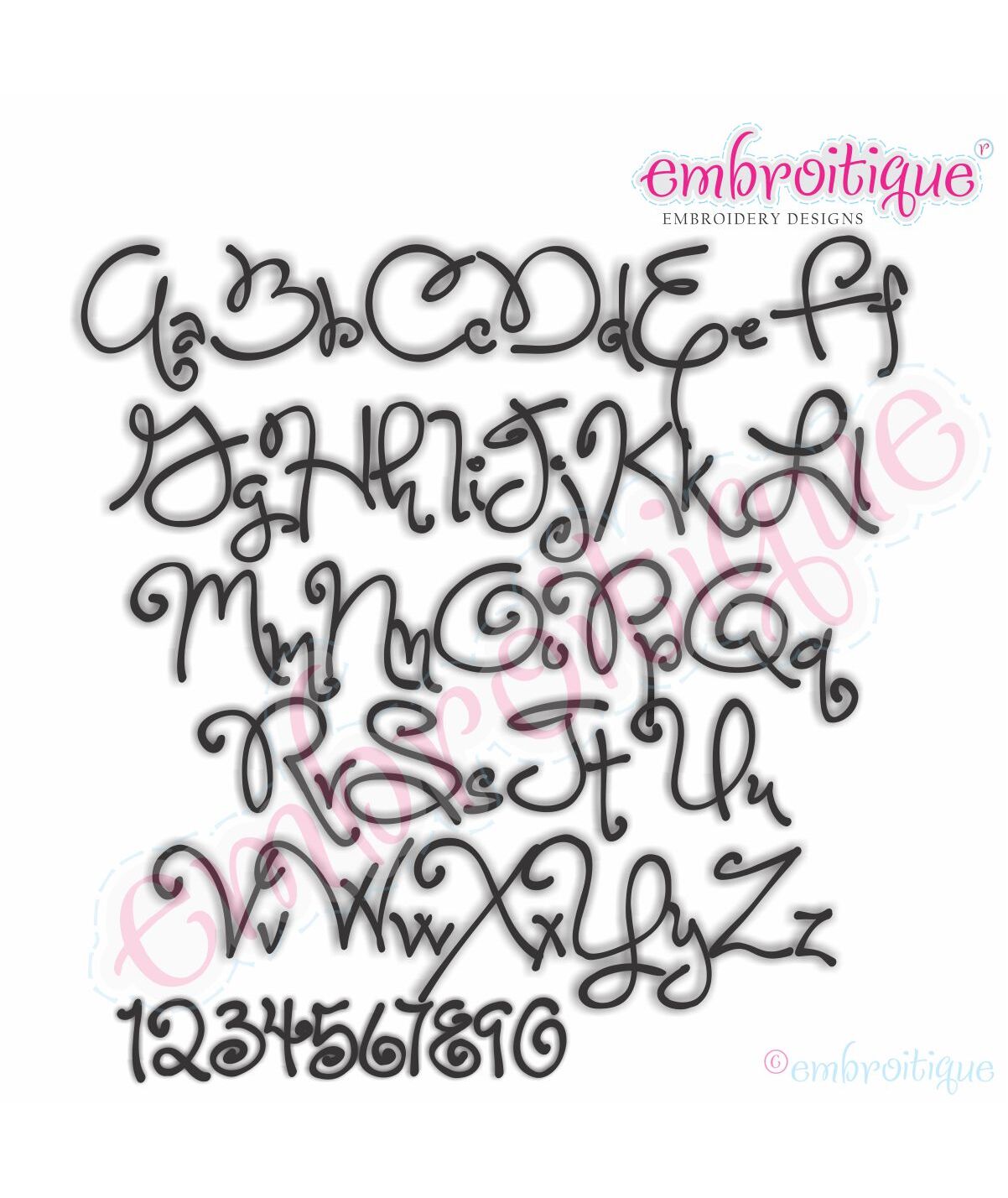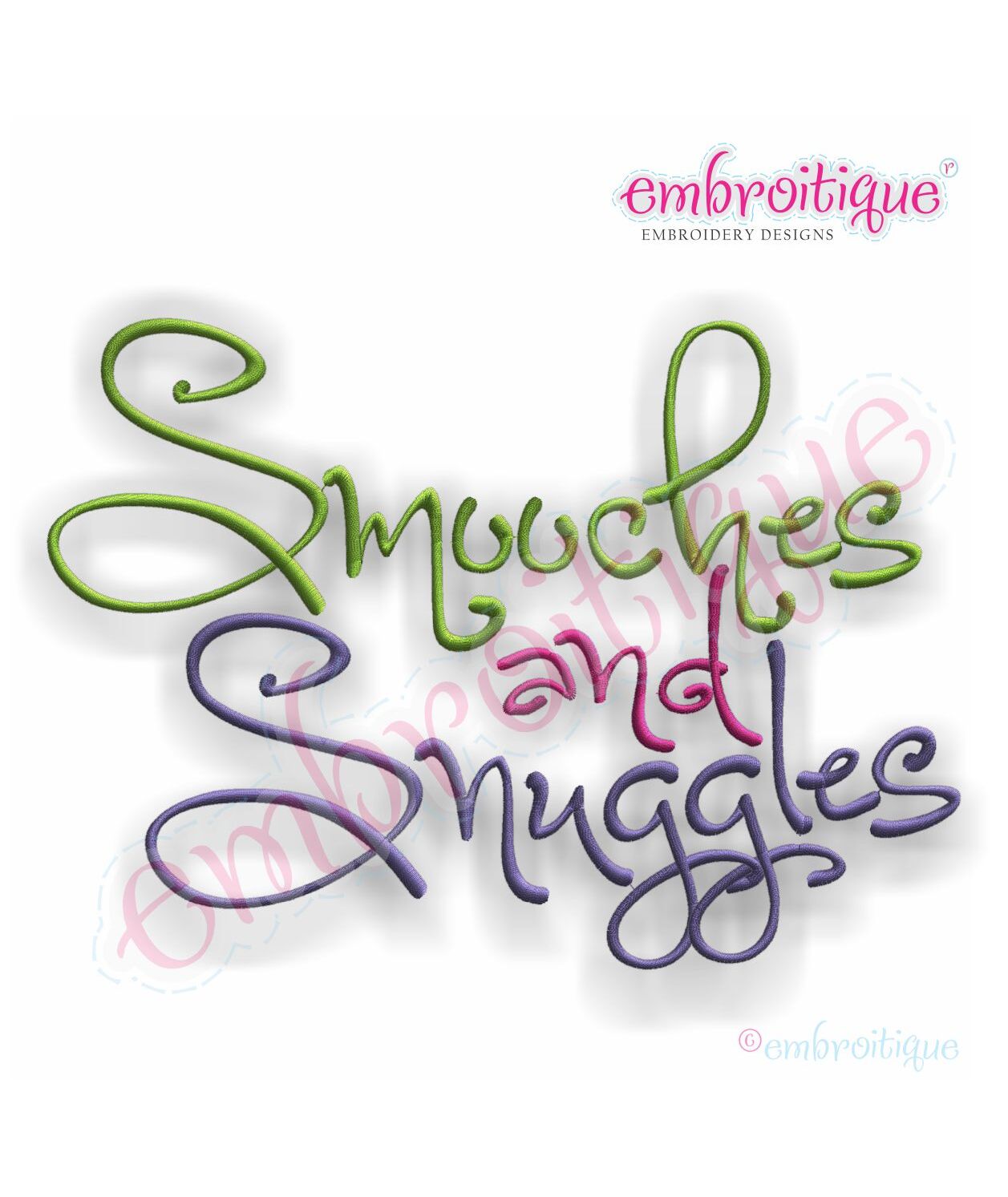
Smooches and Snuggles Monogram Font Set
"Smooches and Snuggles" is such a fun Monogram Set! Â Build your own designs with these fun letters and numbers!
A-Z upper-case, lower-case and numbers 0-9